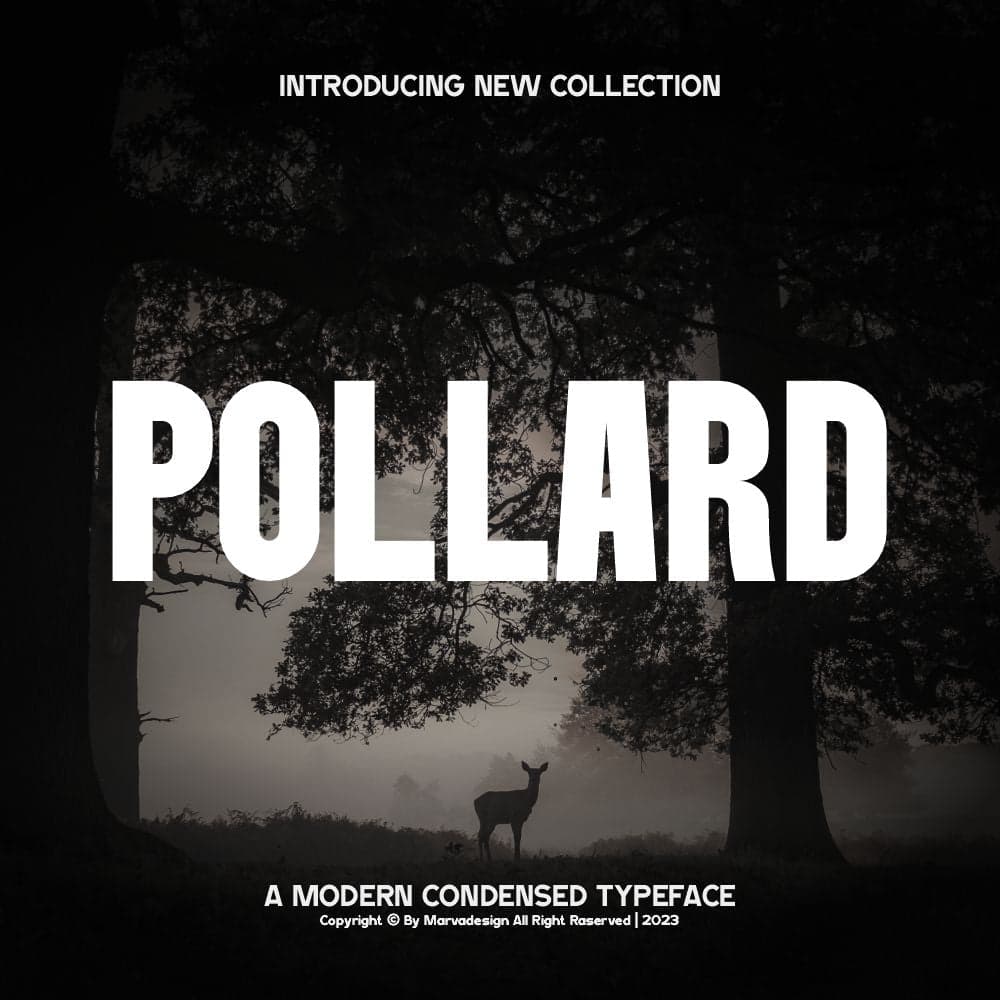
<p>Introducing *<em>Pollard *</em>is a condensed sans-serif font known for its clean and modern aesthetic. Its compact letterforms and balanced proportions make it highly versatile, especially suited for headlines, titles, and other prominent text. The font's simplicity and clarity ensure excellent readability, even at smaller sizes, while its contemporary design adds a professional and stylish touch. *<em>Pollard *</em>is ideal for projects ranging from editorial layouts and branding to posters and digital interfaces, offering a sleek yet approachable visual appeal.</p>